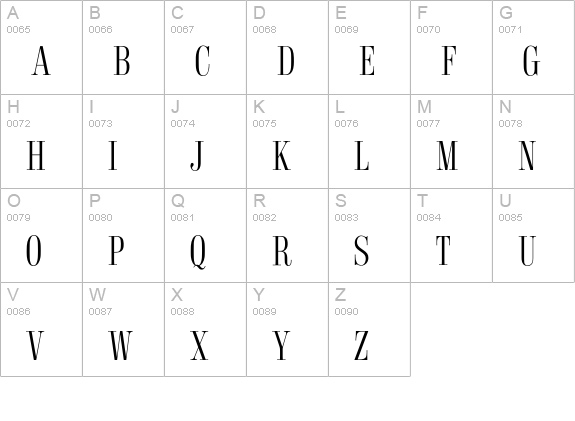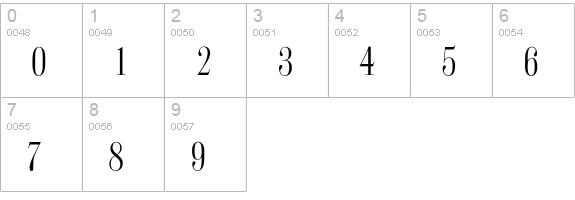
Smyrna Font Details
Smyrna font is a beautifully crafted typeface that exudes elegance and sophistication. With its sleek lines and graceful curves, this font is sure to make a lasting impression on any design project. The versatility of Smyrna font allows it to be used in a wide range of applications, from logos and branding to invitations and editorial designs. What sets Smyrna font apart is not only its stunning design, but also the fact that it is available for free. That's right, this incredible font can be downloaded at no cost from FontsMarket.com. This means that you can add a touch of luxury to your designs without breaking the bank. Whether you're a professional designer or a hobbyist, Smyrna font is a must-have in your font collection. Its timeless appeal and effortless beauty will elevate any project to new heights. So why wait? Head over to FontsMarket.com and get your hands on this amazing font today. Don't miss out on the opportunity to enhance your designs with the exquisite simplicity of Smyrna font, available for free download now.